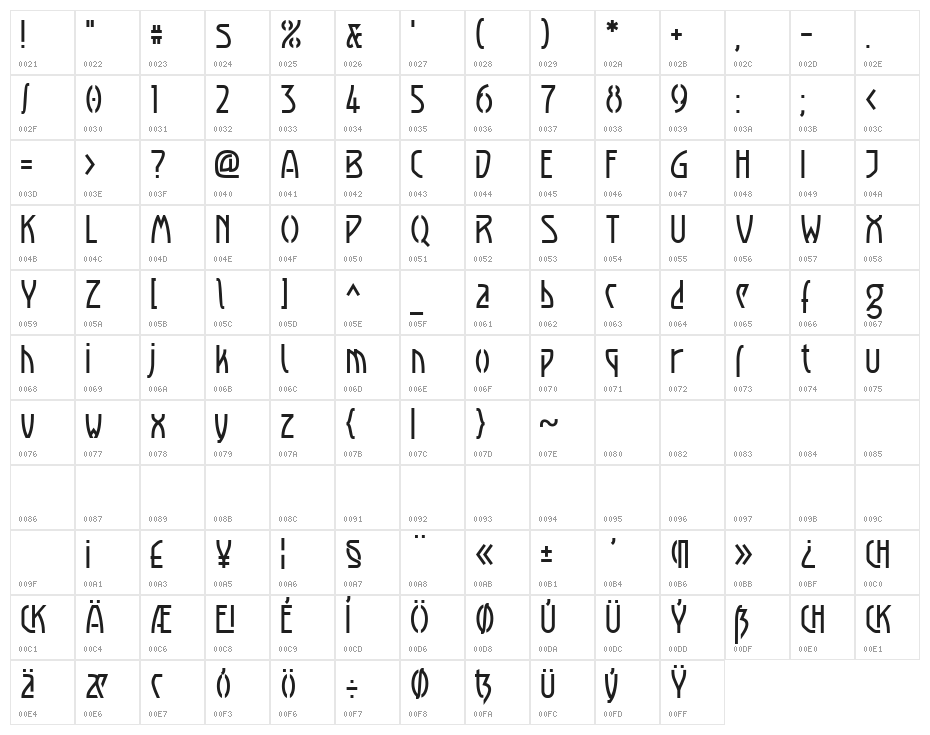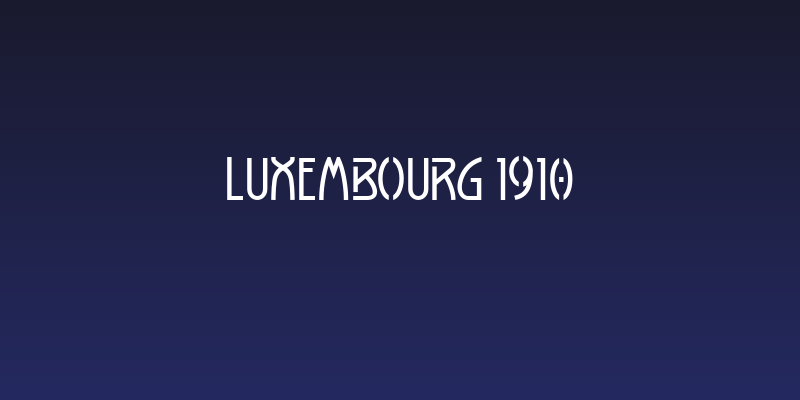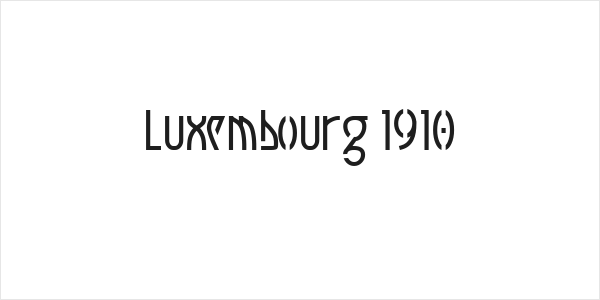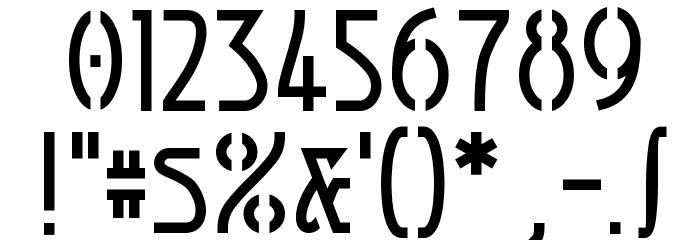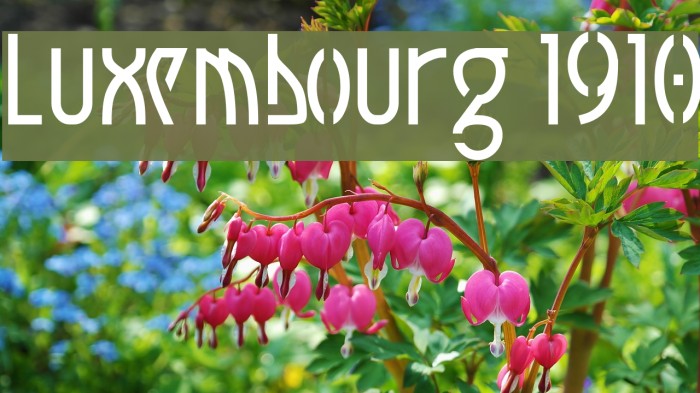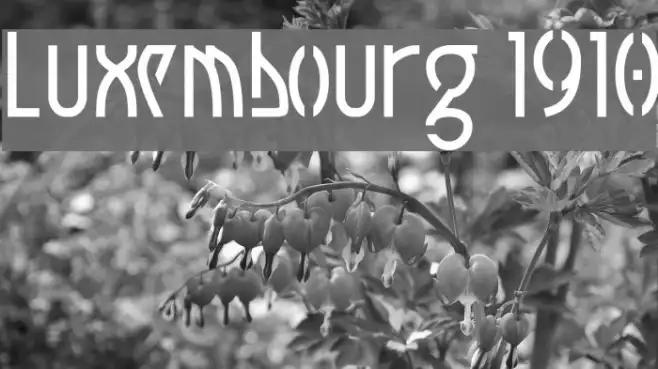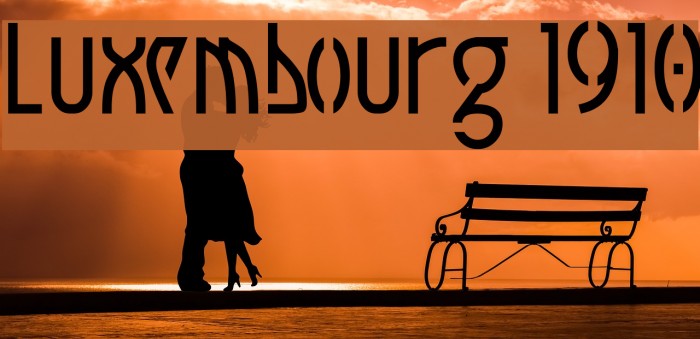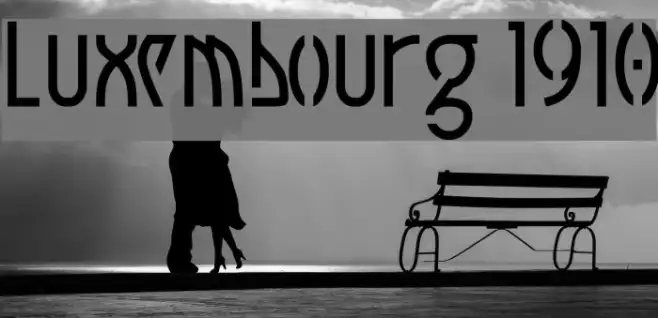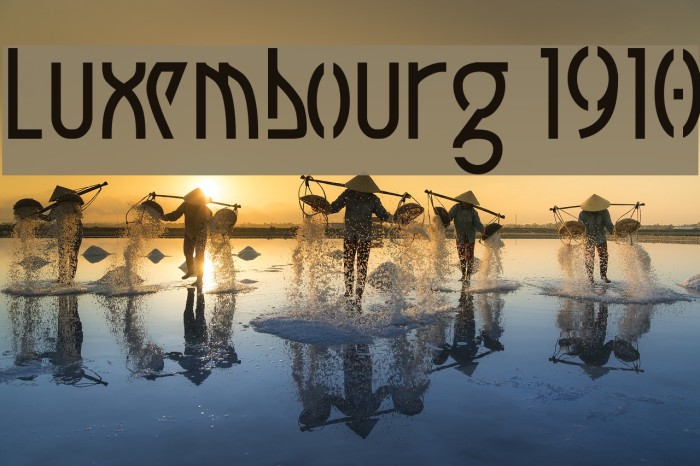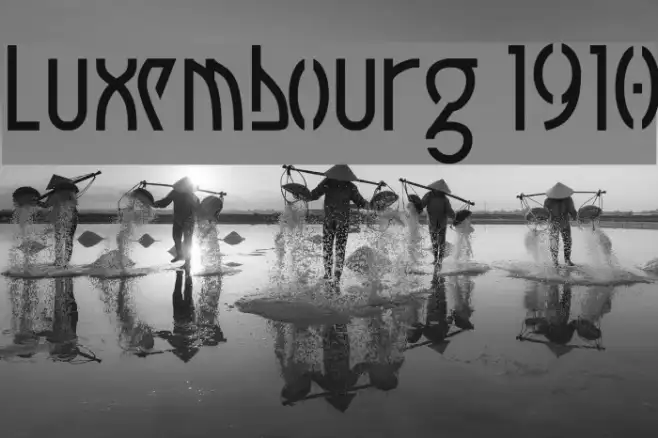
Luxembourg 1910 Font
Luxembourg 1910 Description
This font features a unique blend of geometric and art deco influences, characterized by its bold and angular letterforms. The uppercase letters exhibit a strong vertical emphasis with distinct curves and sharp edges, creating a sense of movement and modernity. The lowercase letters maintain a similar style, offering a cohesive look across different text cases. Numbers and special characters are designed with the same attention to detail, ensuring consistency throughout. The overall design is striking and memorable, making it suitable for projects that require a distinctive and bold typographic statement.